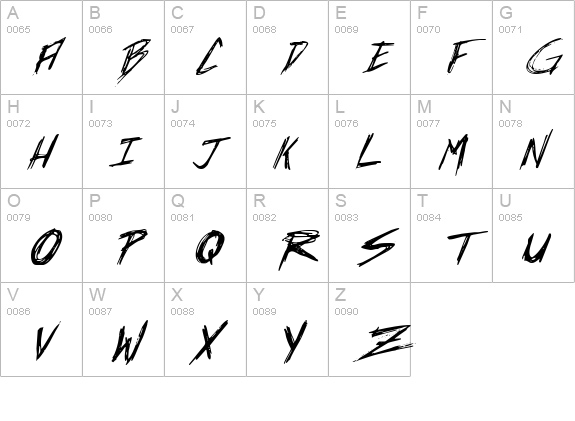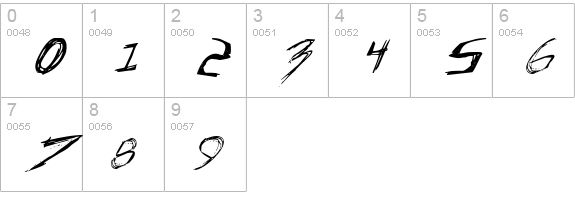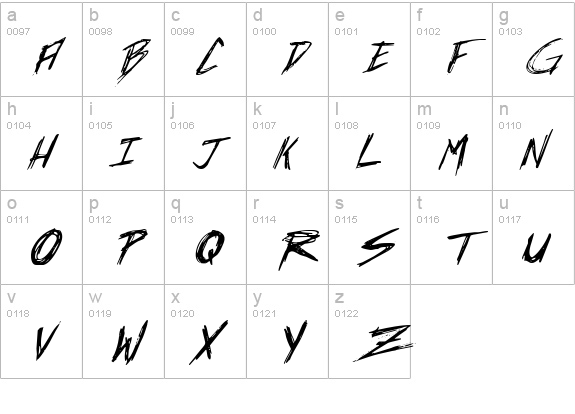
Incubus Italic Font Details
Incubus Italic is a distinctive, italic variant in the Incubus typeface family \xE2\x80\x94 well suited to design and typography projects.
Incubus Italic font is a sleek and modern typeface that exudes elegance and sophistication. With its stylish slanted design, this font is perfect for adding a touch of flair to your projects. The italicized letters convey a sense of movement and dynamism, making it ideal for creating eye-catching headlines or emphasizing important text. What's even better is that Incubus Italic font is completely free to download at FontsMarket.com. Whether you're a designer working on a professional project or an enthusiast looking to enhance your personal creations, this font will surely elevate your work to the next level. Don't miss out on the opportunity to add this stunning typeface to your collection and unleash your creativity with Incubus Italic font today.